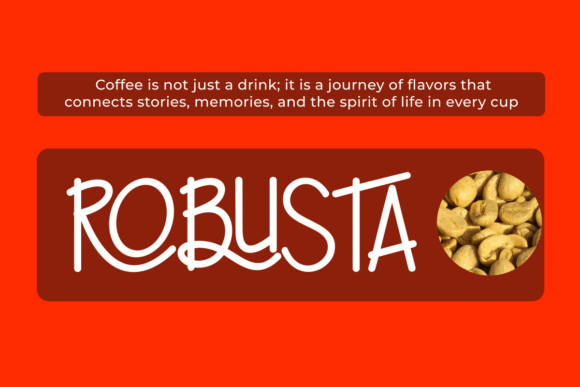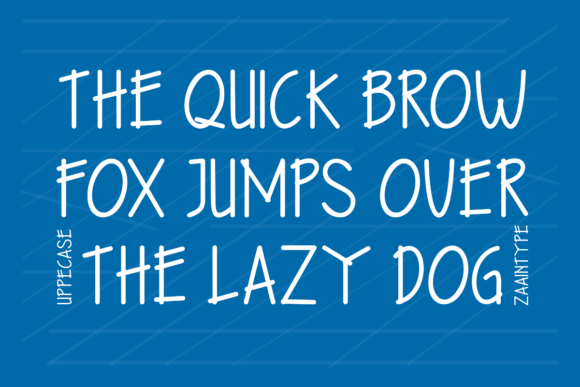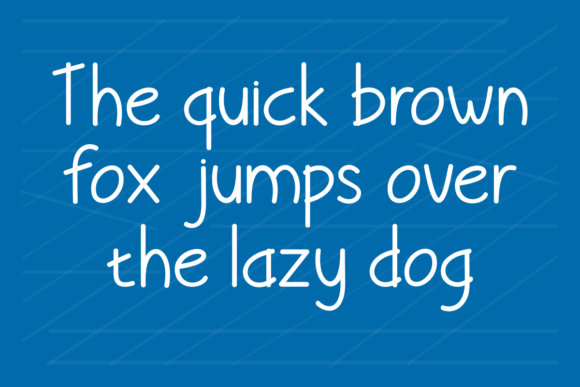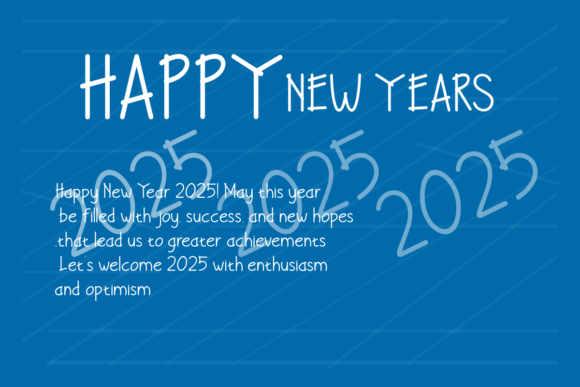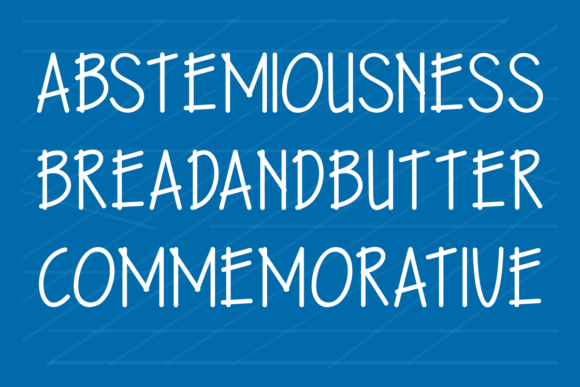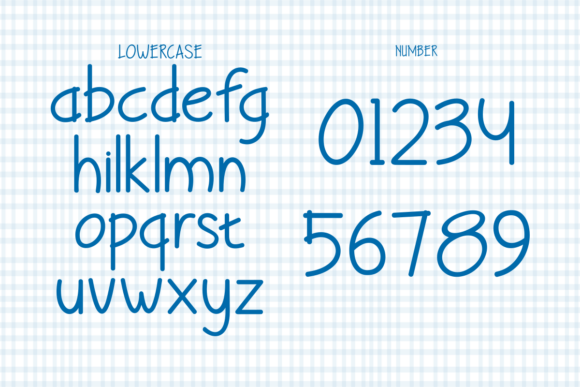
Introduction to Redishand Font Font
Fonts play a crucial role in design, and the Redishand Font font is a typeface that brings both character and versatility to any project. Whether you’re working on a branding project, a website, or a print design, the Redishand Font font offers a unique style that can elevate your work.
Indulge in the grace and charm of Redishand – a monoline font designed to exude elegance with a hint of whimsy.
Each letter elegantly crafted, Redishand mirrors an impeccably neat and natural handwriting style With its fluid, consistent lines, this font embodies sophistication and individuality, making it an unparalleled choice for an array of creative endeavors.
Key Features of Redishand Font Font
Why Choose Redishand Font Font?
The Redishand Font font is more than just a typeface – it’s a design tool that helps you communicate your message with style and clarity. Its unique character set and versatile design make it suitable for a wide range of applications, from elegant invitations to bold headlines.
With its carefully crafted letterforms and balanced proportions, the Redishand Font font ensures readability and visual appeal across all mediums.
What makes Redishand Font font special?
The Redishand Font font stands out with its unique design, exceptional readability, and versatility across various design applications.